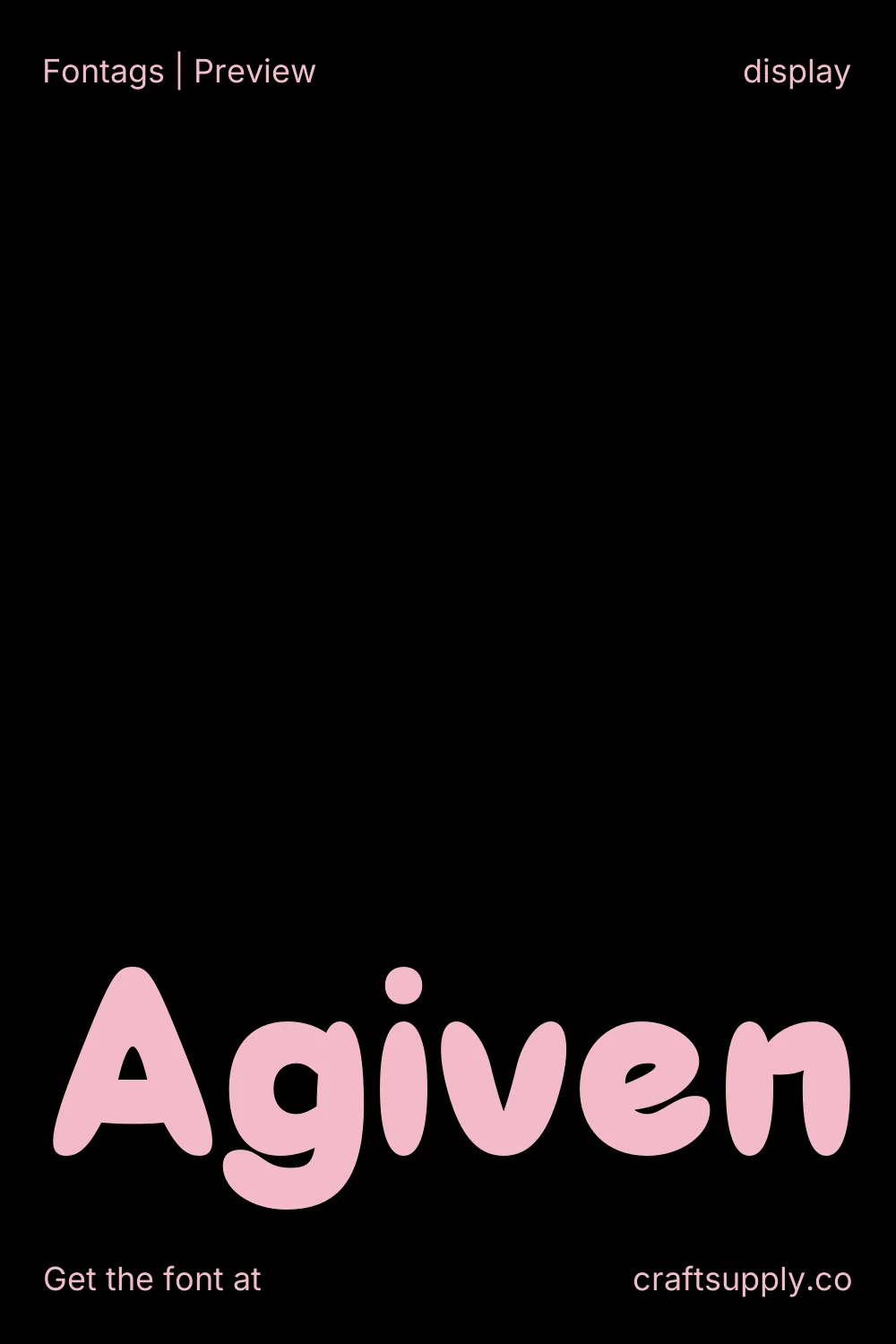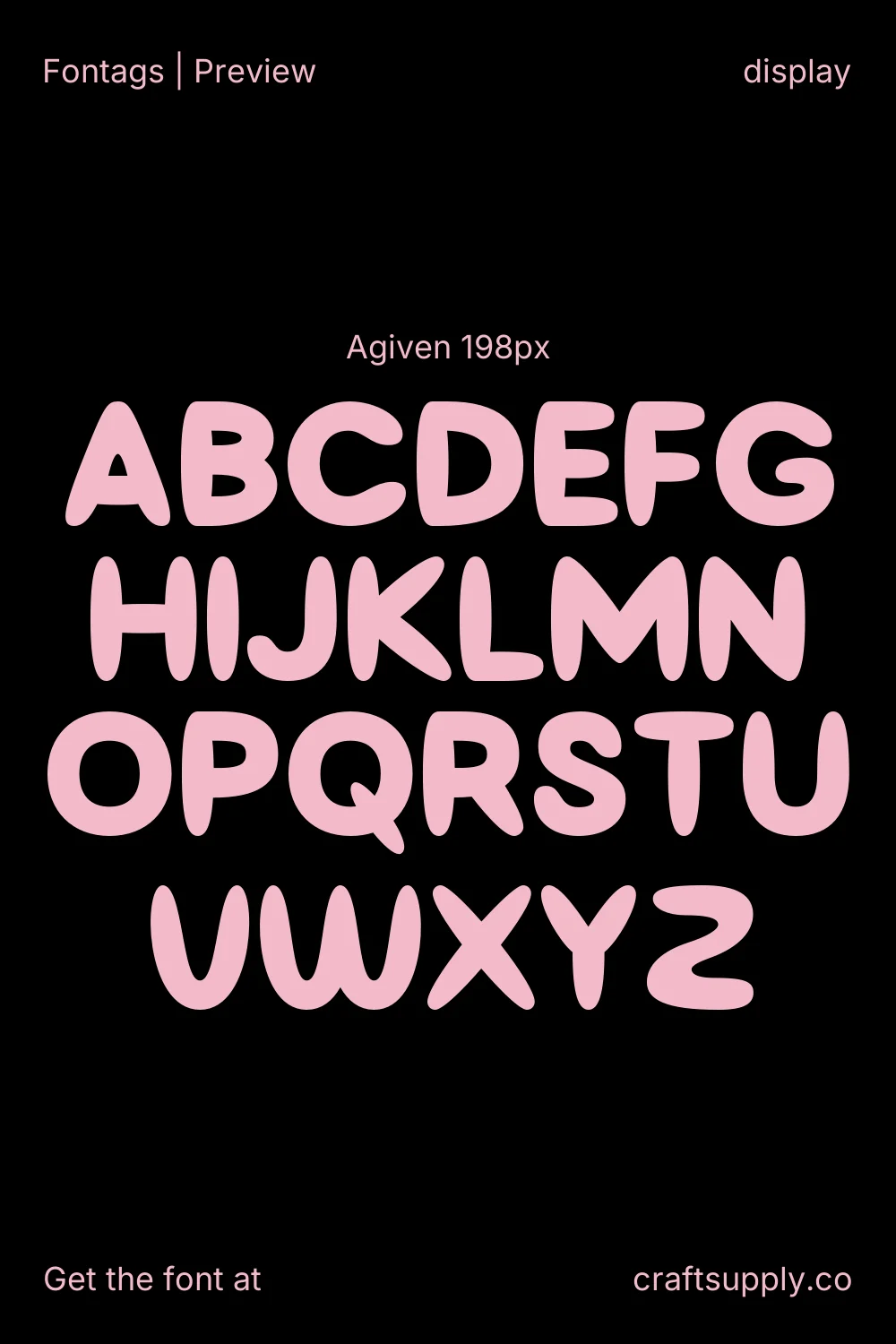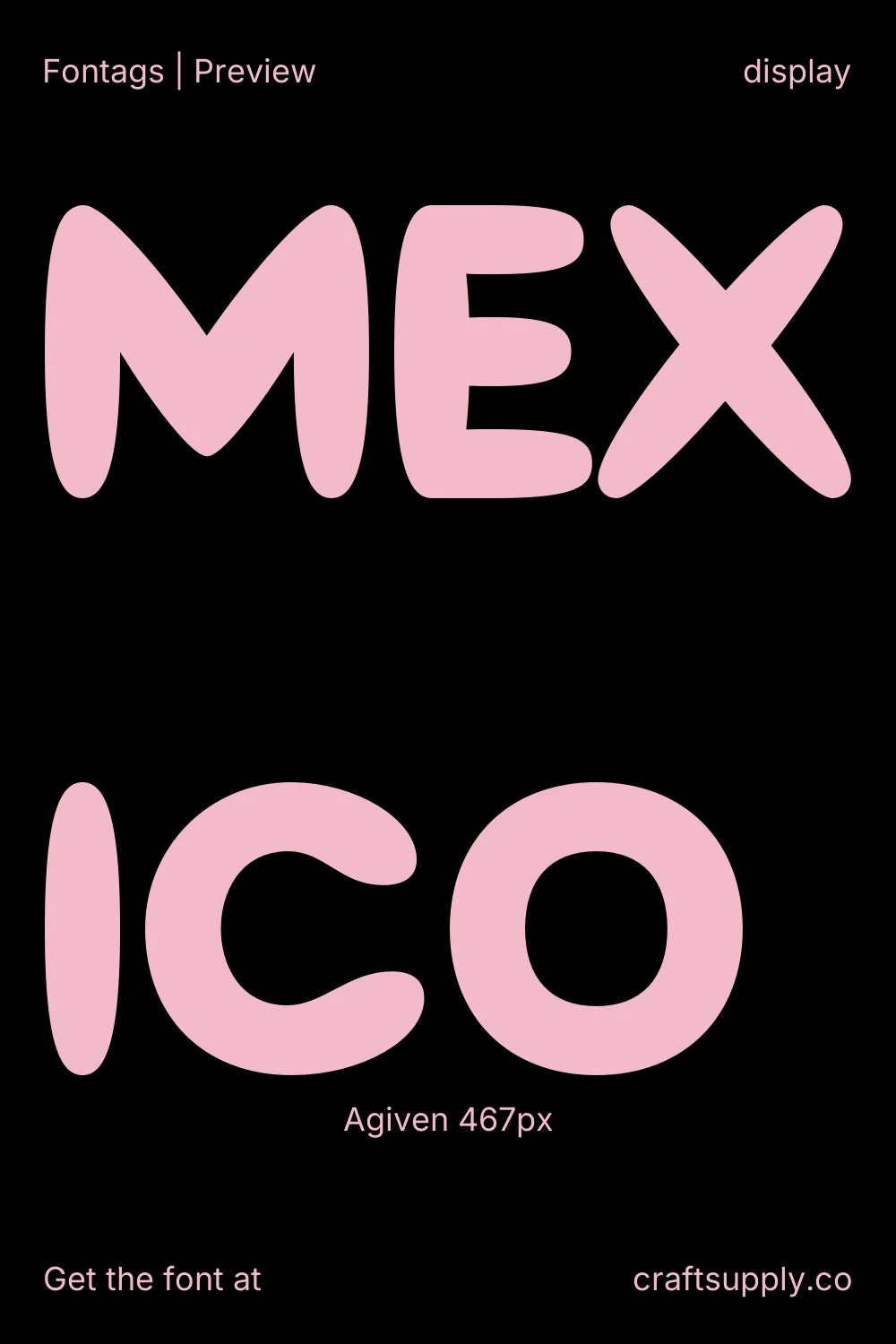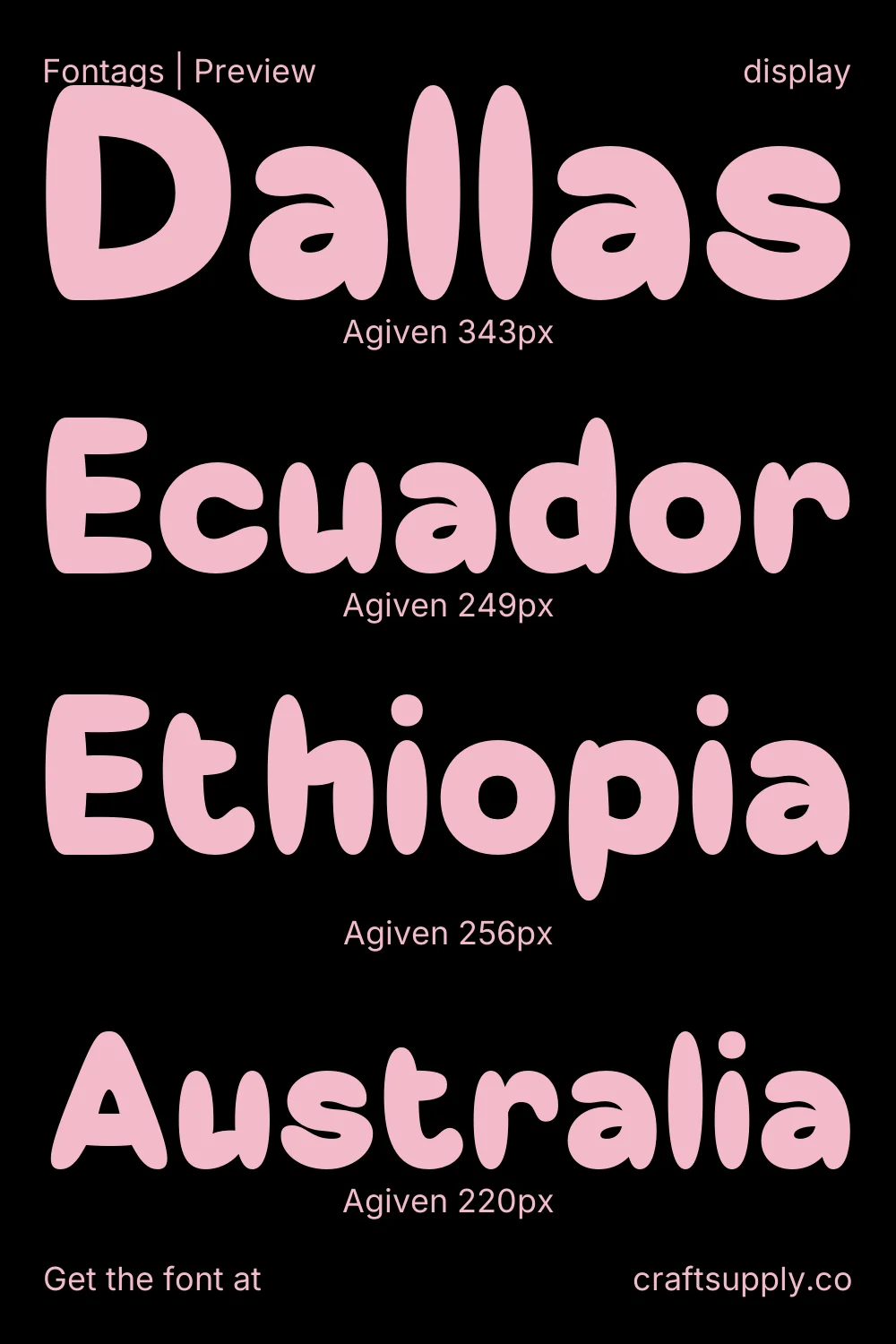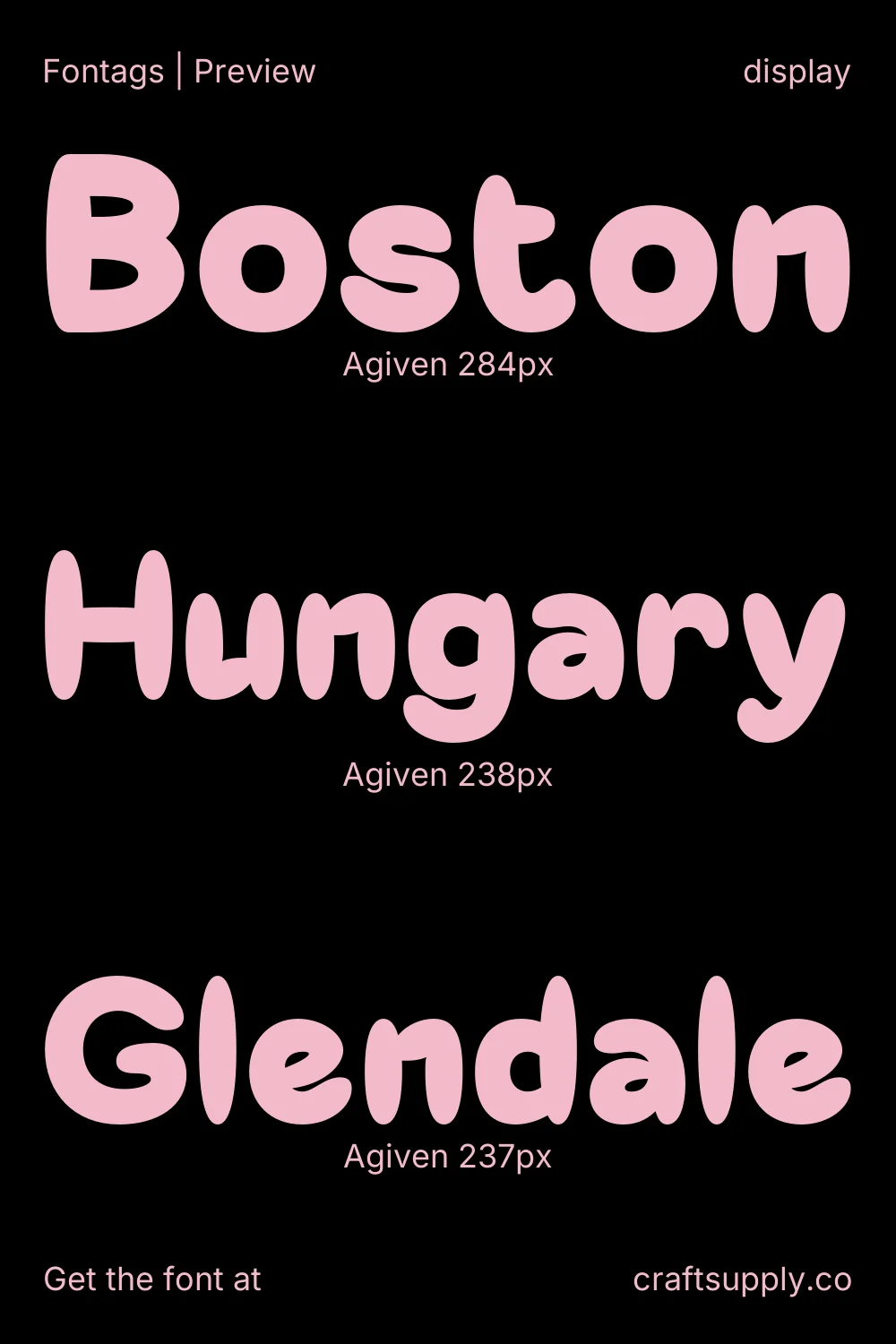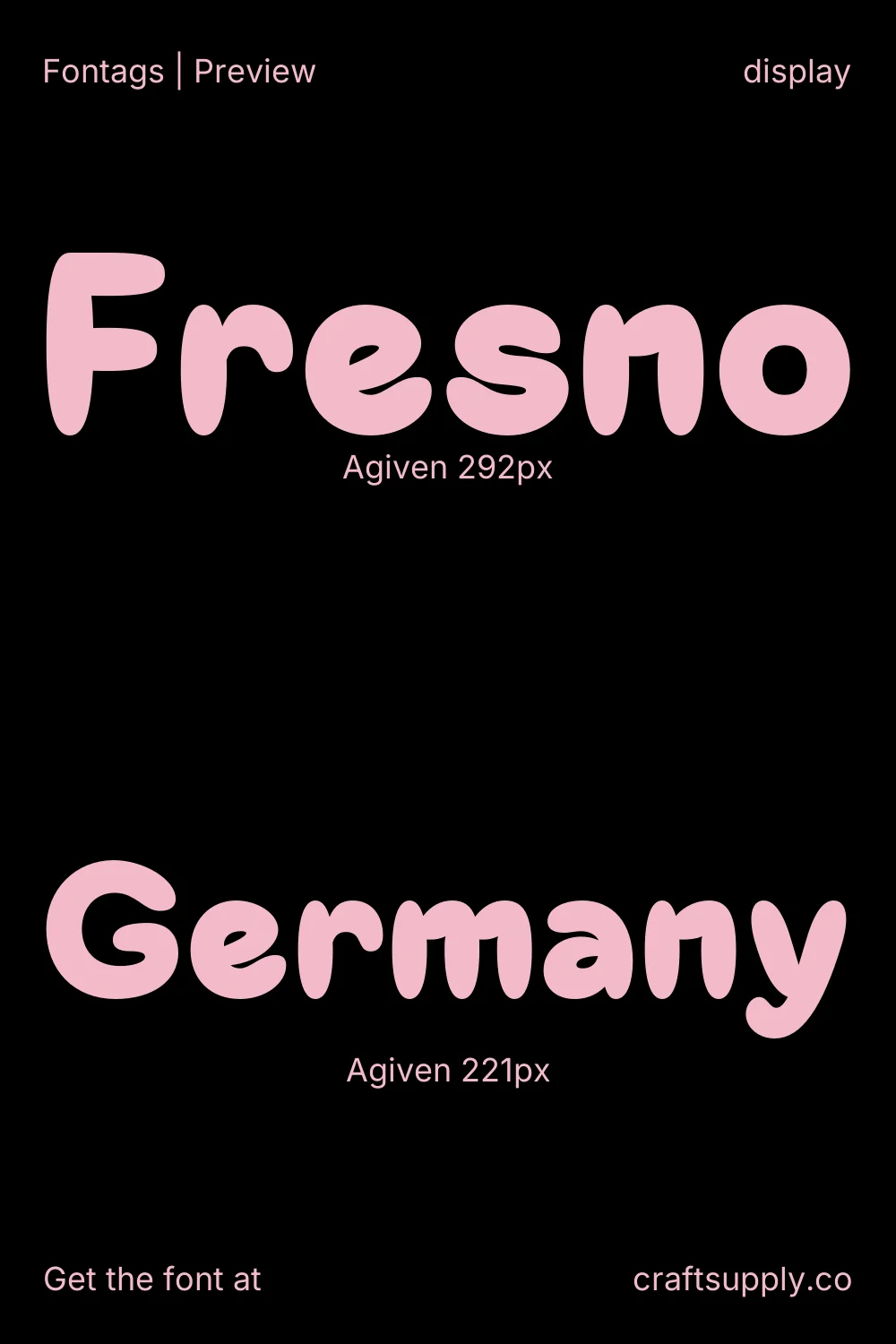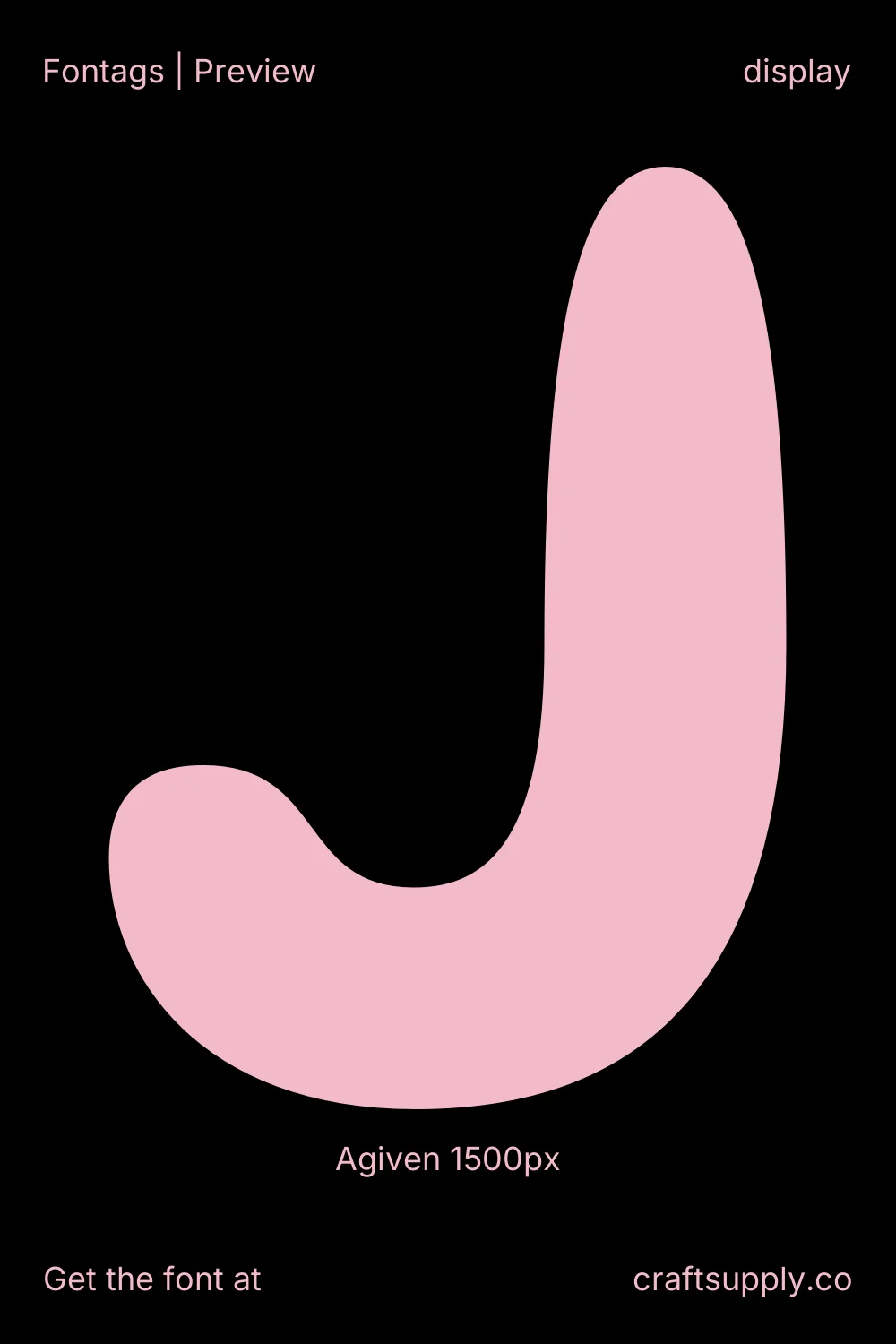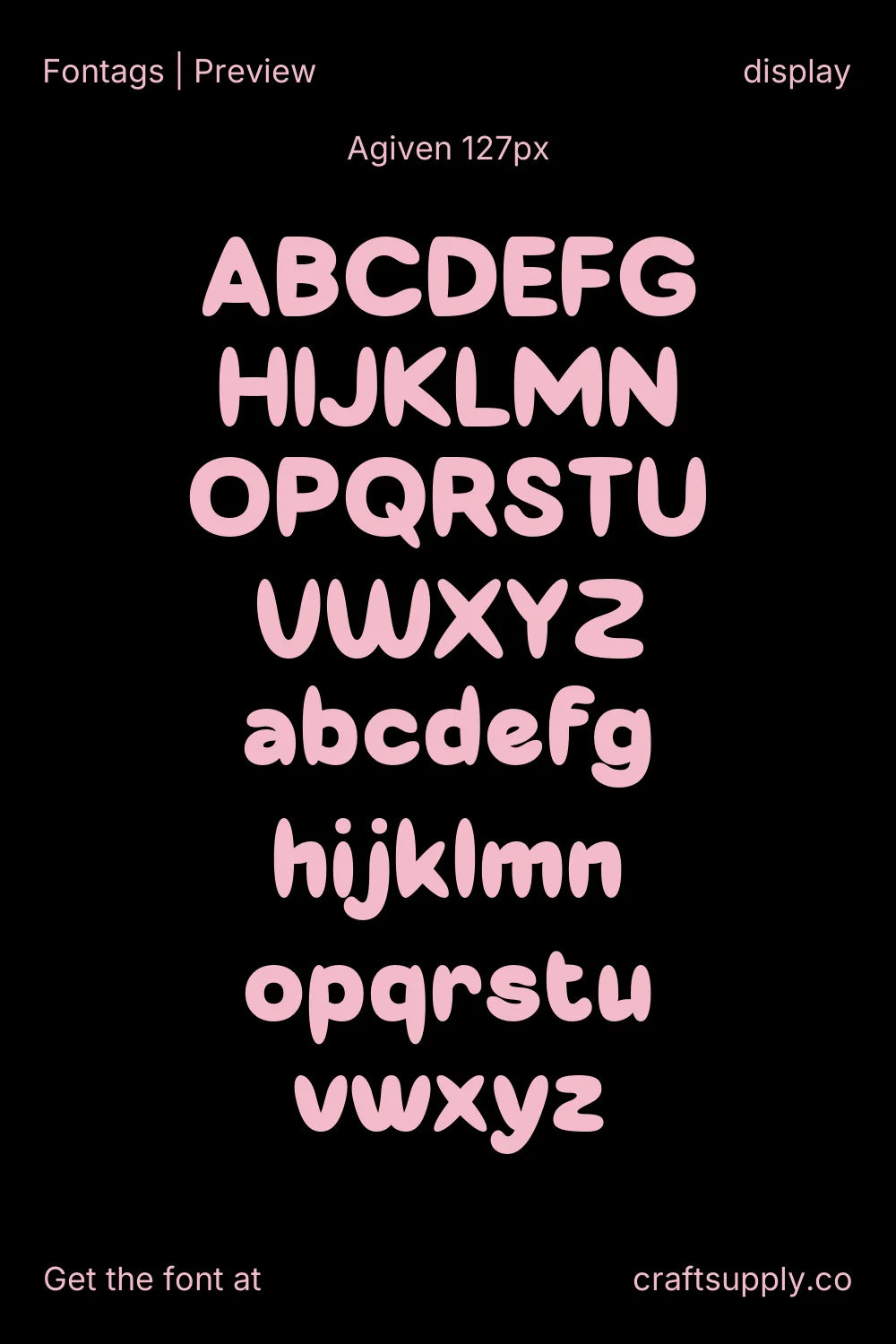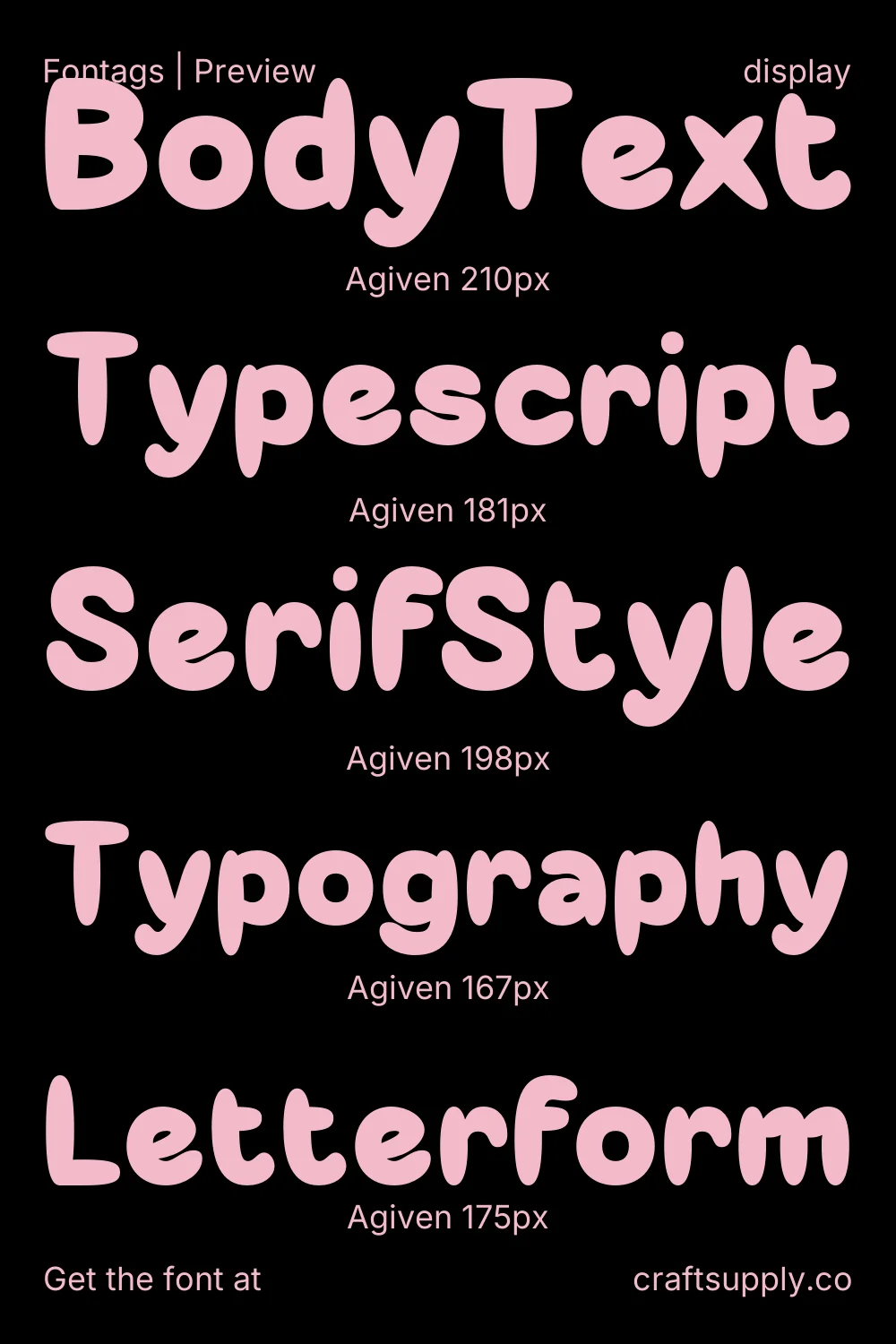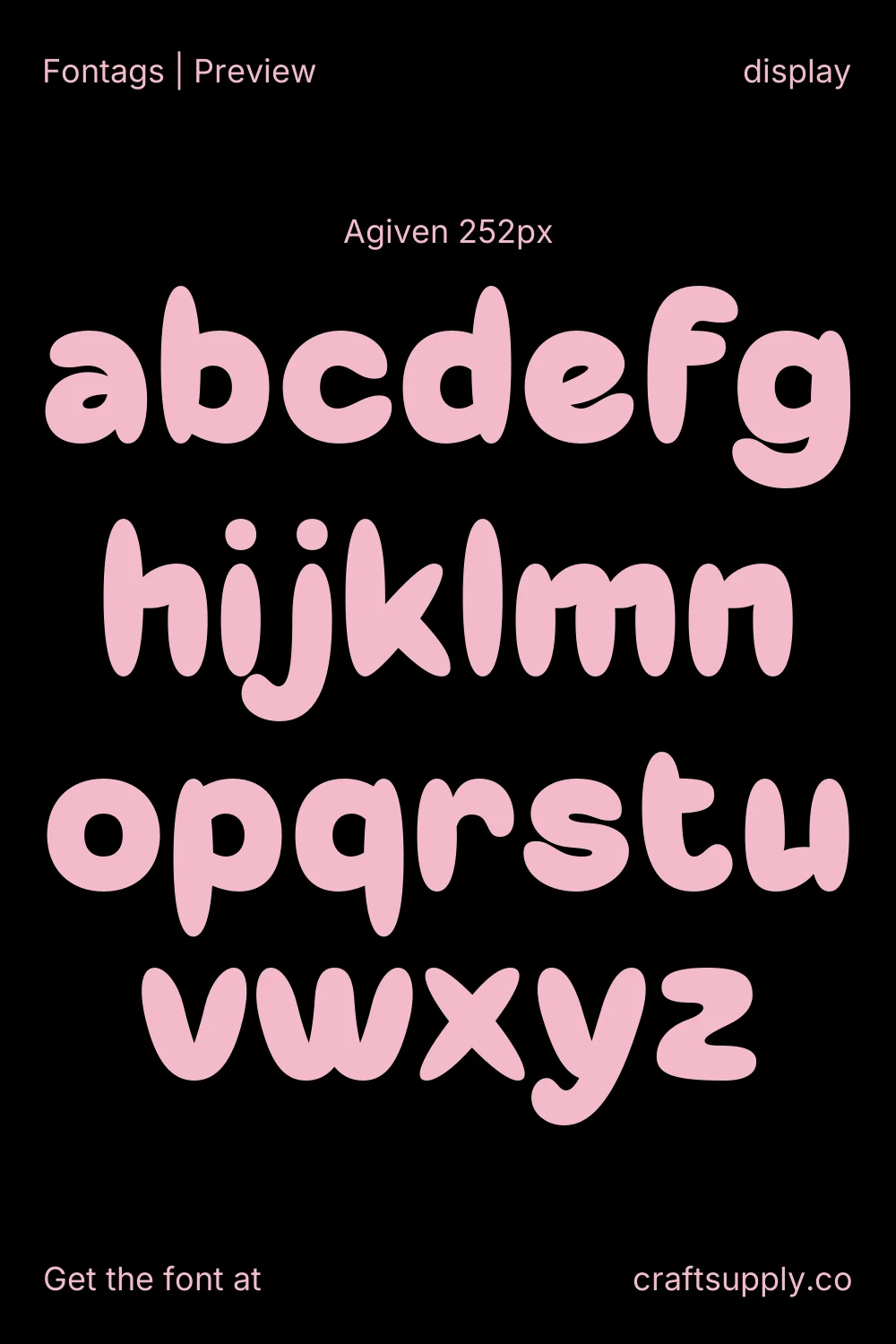
Agiven
Agiven is a playful bubble font with rounded, whimsical letterforms inspired by childhood joy. Its cheerful style is perfect for display uses such as children's books, toy packaging, event invitations, logos, and posters. The font includes both Regular and Italic styles with multilingual support.